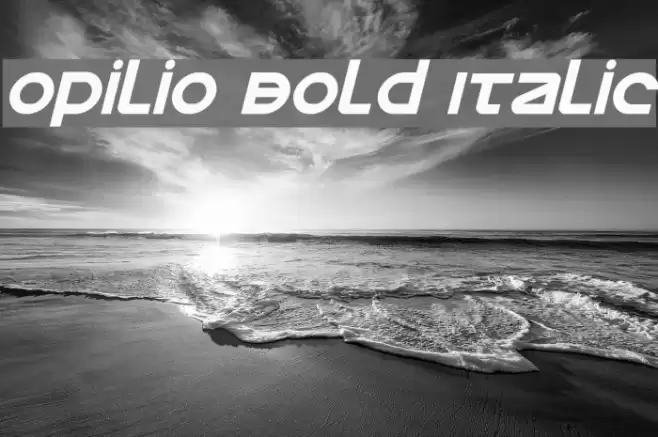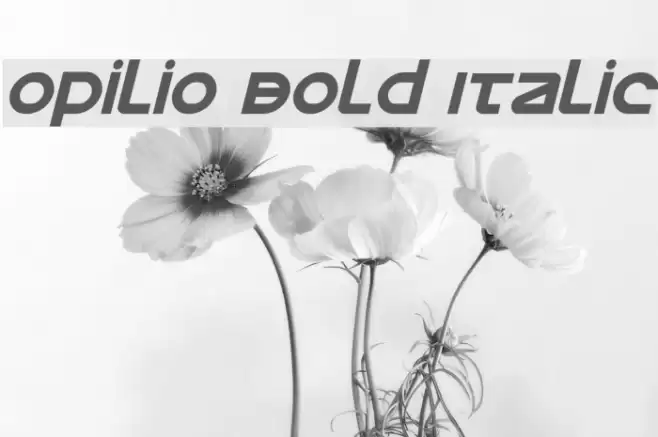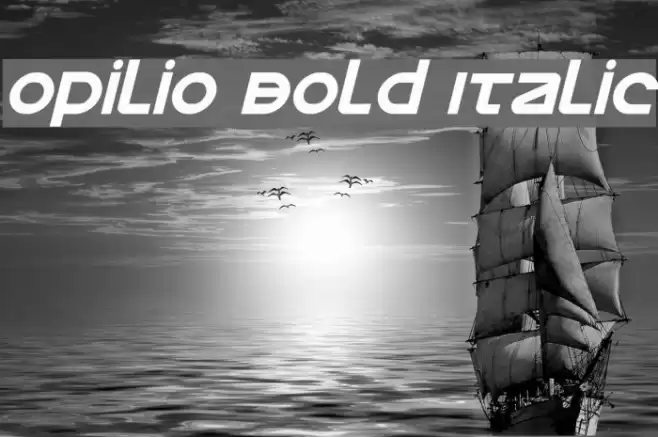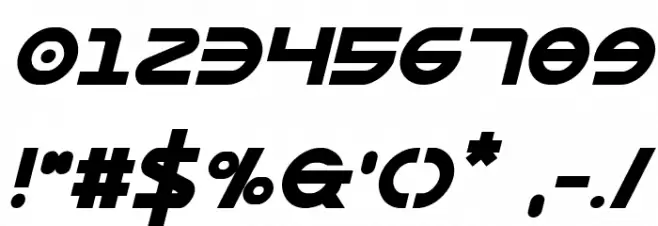
Opilio Bold Italic Font
Opilio Bold Italic Description
This font features a bold and italicized style with a modern and dynamic appearance. The characters are slightly slanted, giving a sense of motion and energy. The strokes are thick and consistent, providing a strong visual impact. The design is clean and geometric, with sharp angles and a futuristic feel. The numbers and special characters maintain the same bold and italicized characteristics, ensuring uniformity across all glyphs.
A bold, italicized font with a modern, dynamic style from Uncategorized fonts.
- Proposed Projects: Ideal for sports branding, tech company logos, dynamic posters, and modern web design.